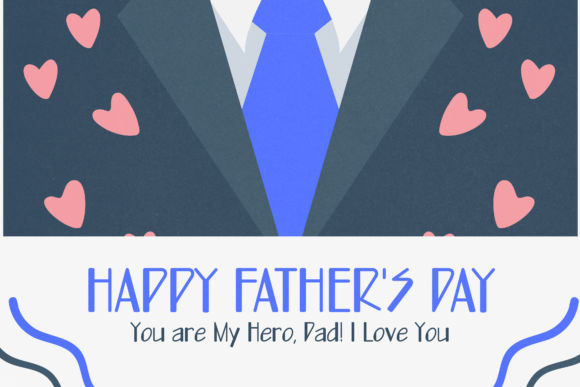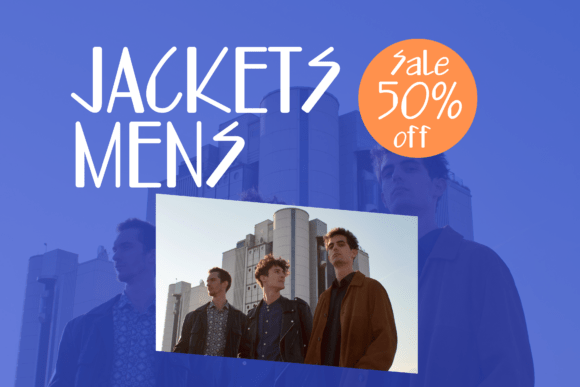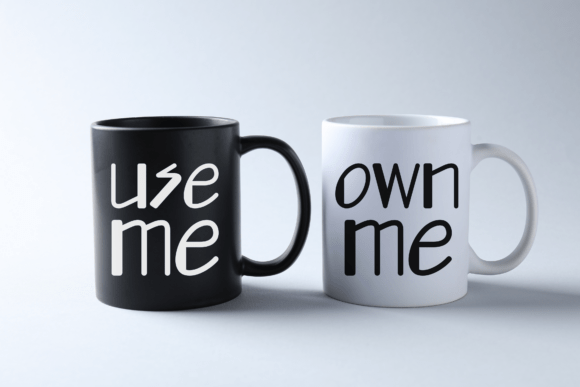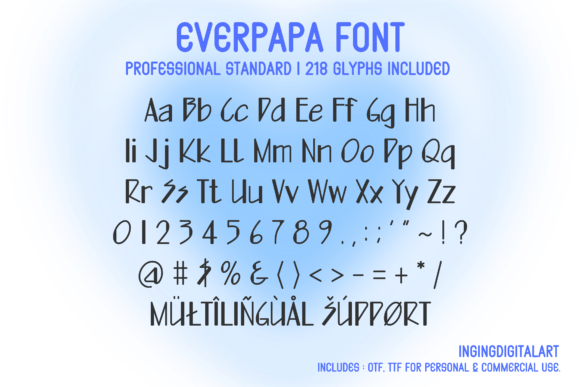
Introducing Everpapa Font: The Quirky Handwritten Font with a Fun Masculine Twist
Are you looking for a font that can add a cool, energetic edge to your designs? Look no further than EverPapa, a quirky handwritten font with a fun masculine twist. Designed with sharp, angular details and a playfully confident vibe, EverPapa is the perfect choice for projects that need a bit of personality.
EverPapa is a versatile font that can be used for a wide range of projects, from crafting memorable Father’s Day cards to designing bold men’s apparel. Its hand-drawn look and energetic vibe make it perfect for creating witty quotes for mugs, building an eye-catching brand identity, or adding a personal touch to any design.
What Makes Everpapa Font Stand Out?
So, what sets EverPapa apart from other fonts? Here are a few key features that make it a standout:
- Quirky and Playful: EverPapa has a fun, quirky vibe that adds a touch of personality to any design.
- Sharp, Angular Details: The font’s sharp, angular details give it a bold, edgy look that’s perfect for designs that need a bit of attitude.
- Hand-Drawn Look: EverPapa has a hand-drawn look that gives it a unique, organic feel.
- Masculine Twist: The font’s masculine twist makes it perfect for designs that need a strong, confident look.
Use Cases for Everpapa Font
EverPapa is a versatile font that can be used for a wide range of projects, including:
- Father’s Day Cards: Create memorable Father’s Day cards with a personal touch using EverPapa.
- Men’s Apparel: Design bold, eye-catching men’s apparel with EverPapa’s confident, masculine vibe.
- Mugs and Quotes: Add a touch of humor and personality to your mug designs with EverPapa’s playful, quirky vibe.
- Brand Identity: Build an eye-catching brand identity with EverPapa’s unique, hand-drawn look.
Tips for Pairing Everpapa Font with Your Designs
EverPapa is a quirky handwritten font with a fun masculine twist that’s perfect for designers and crafters looking to add a cool, energetic edge to their designs. With its sharp, angular details and playfully confident vibe, EverPapa is the perfect choice for projects that need a bit of personality. Whether you’re crafting memorable Father’s Day cards, designing bold men’s apparel, creating witty quotes for mugs, or building an eye-catching brand identity, EverPapa delivers a hand-drawn look that stands out effortlessly. Pair it with your creative ideas for a look that is both fresh and distinctively cool.